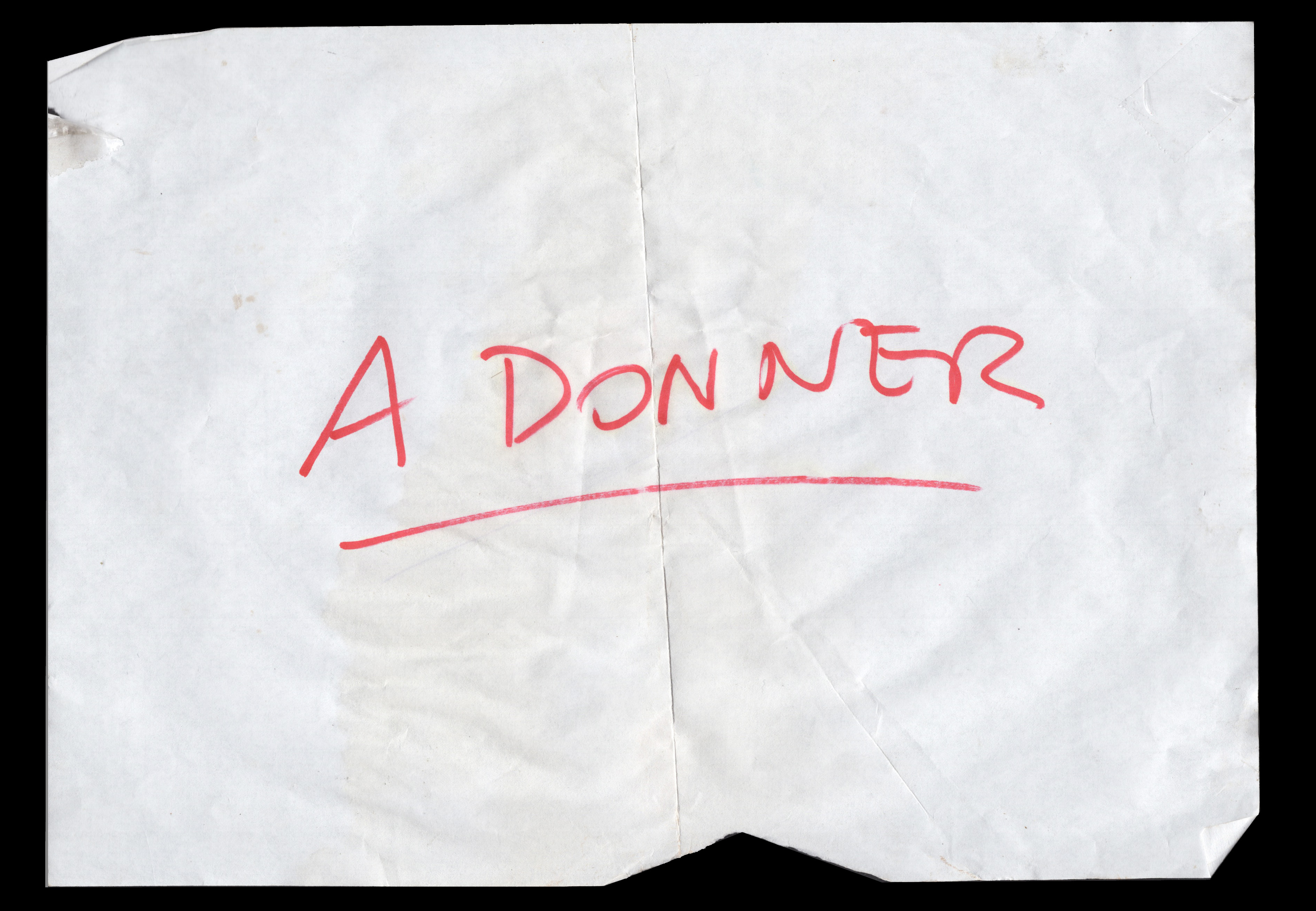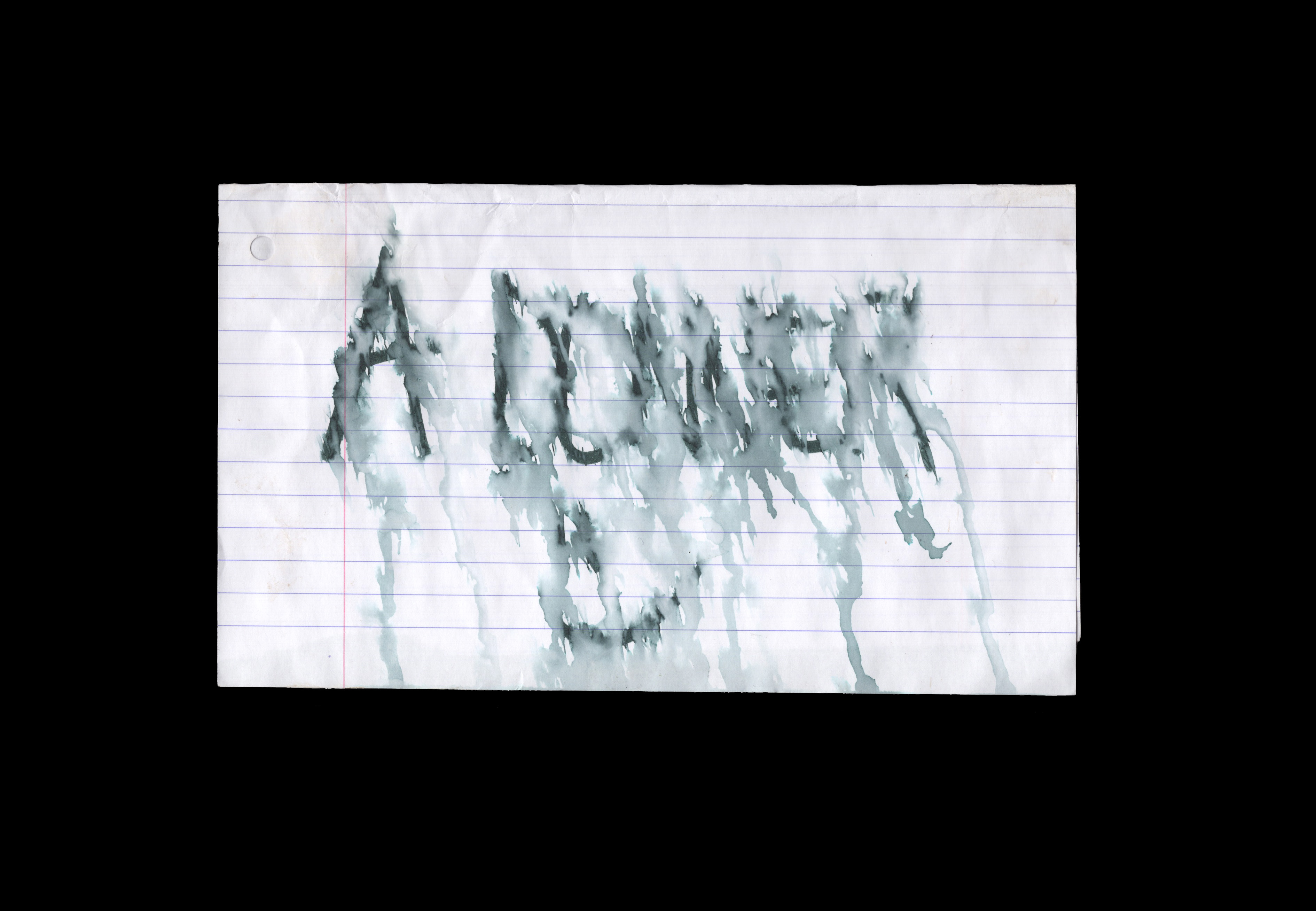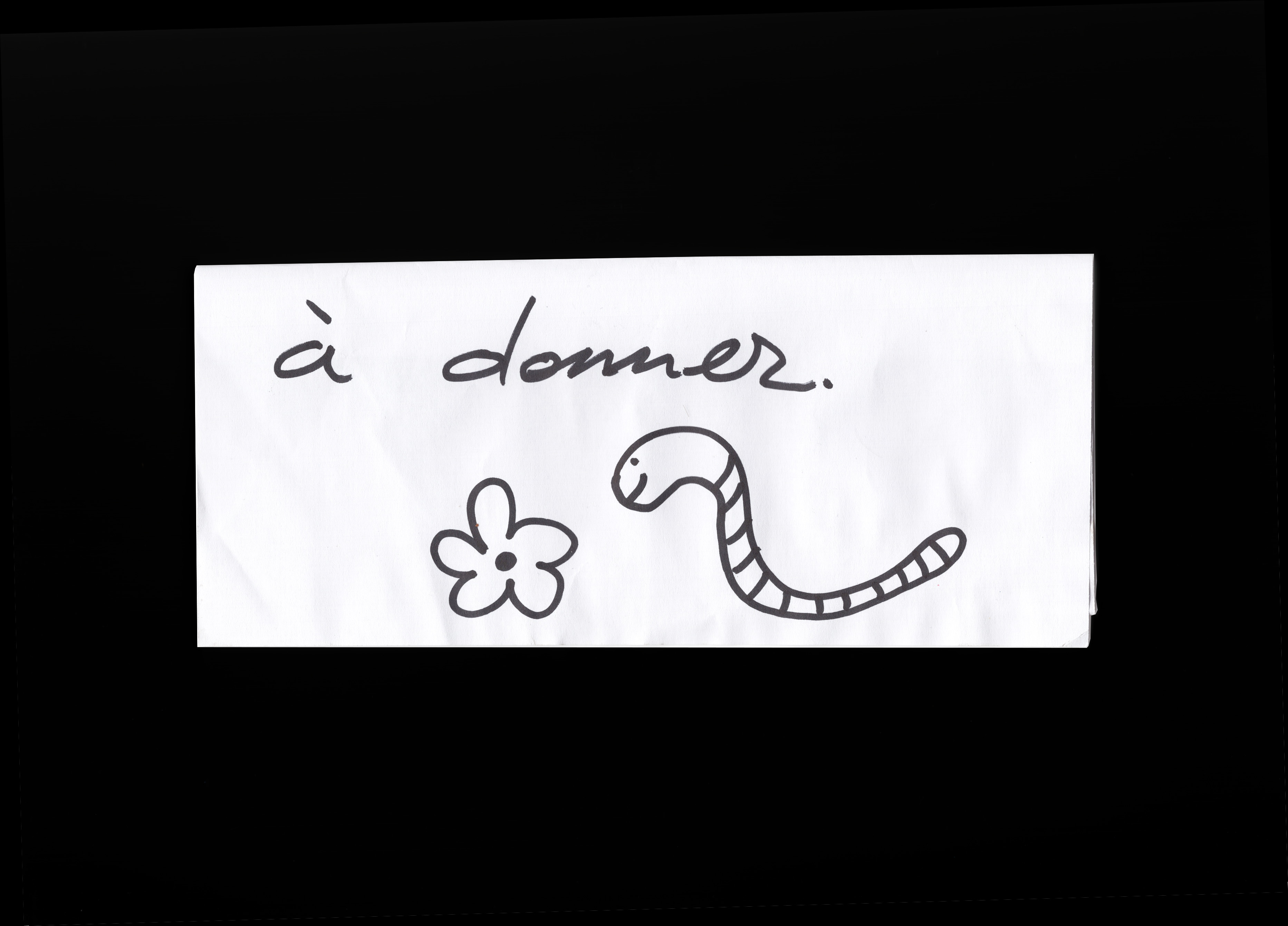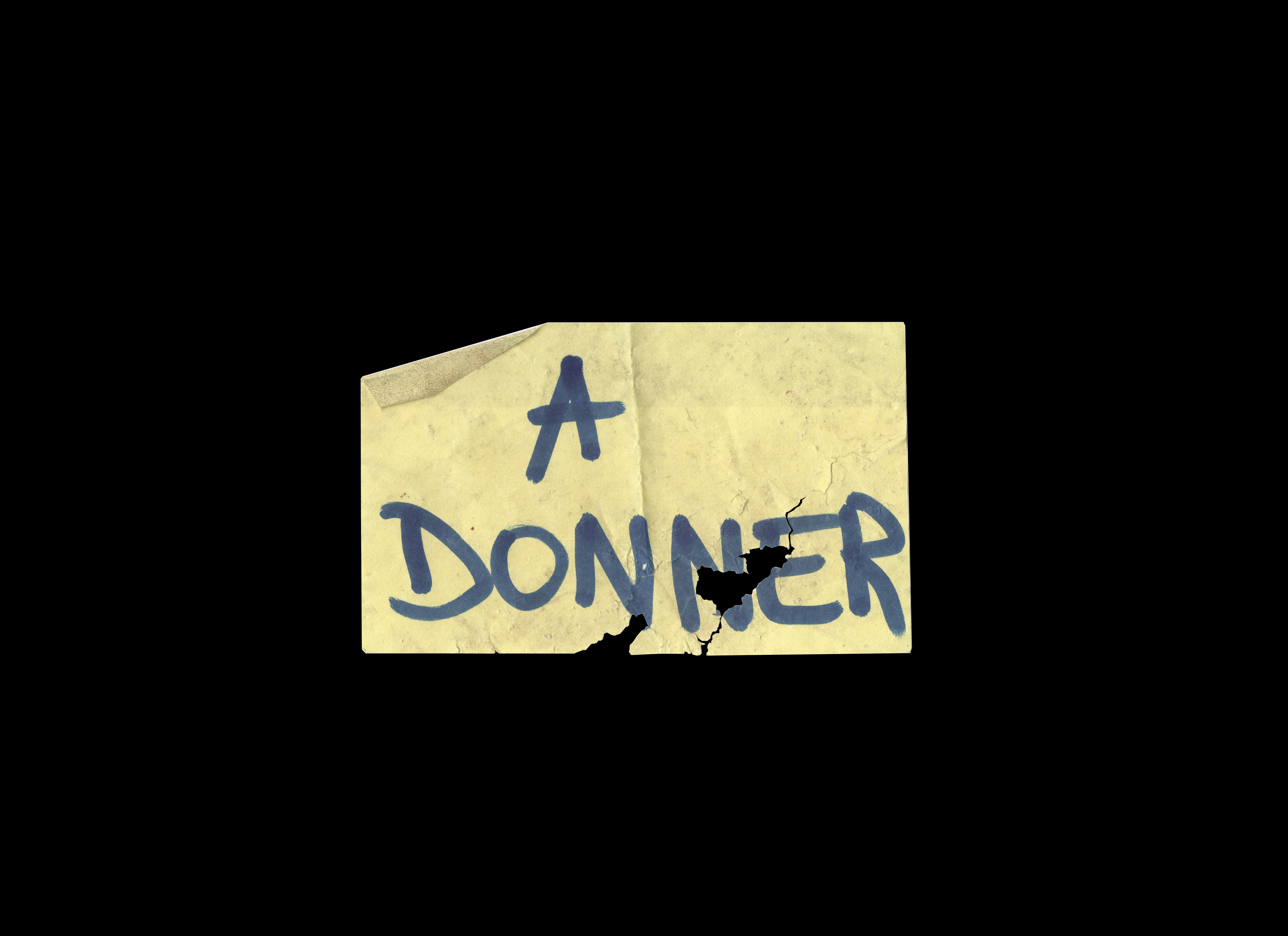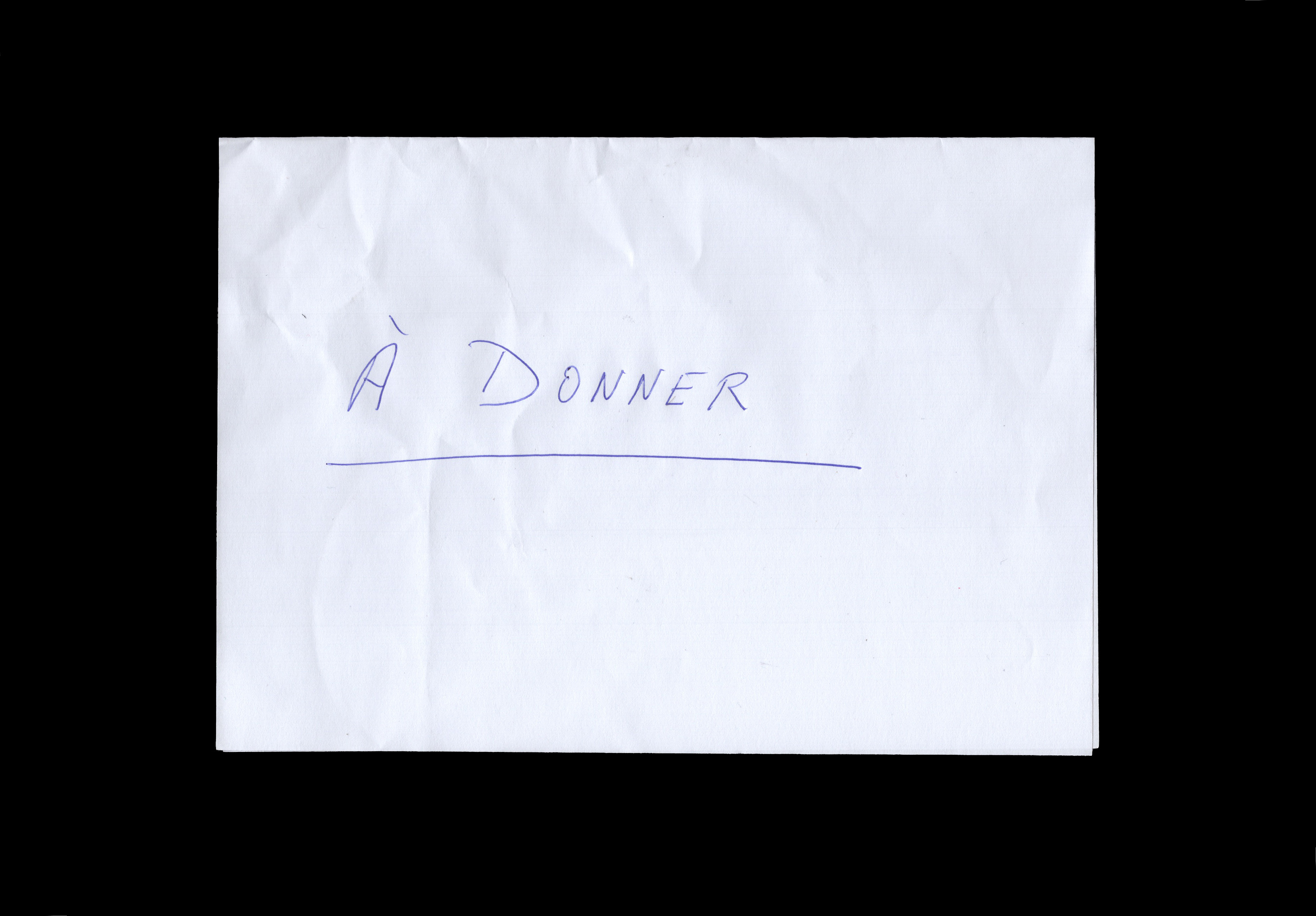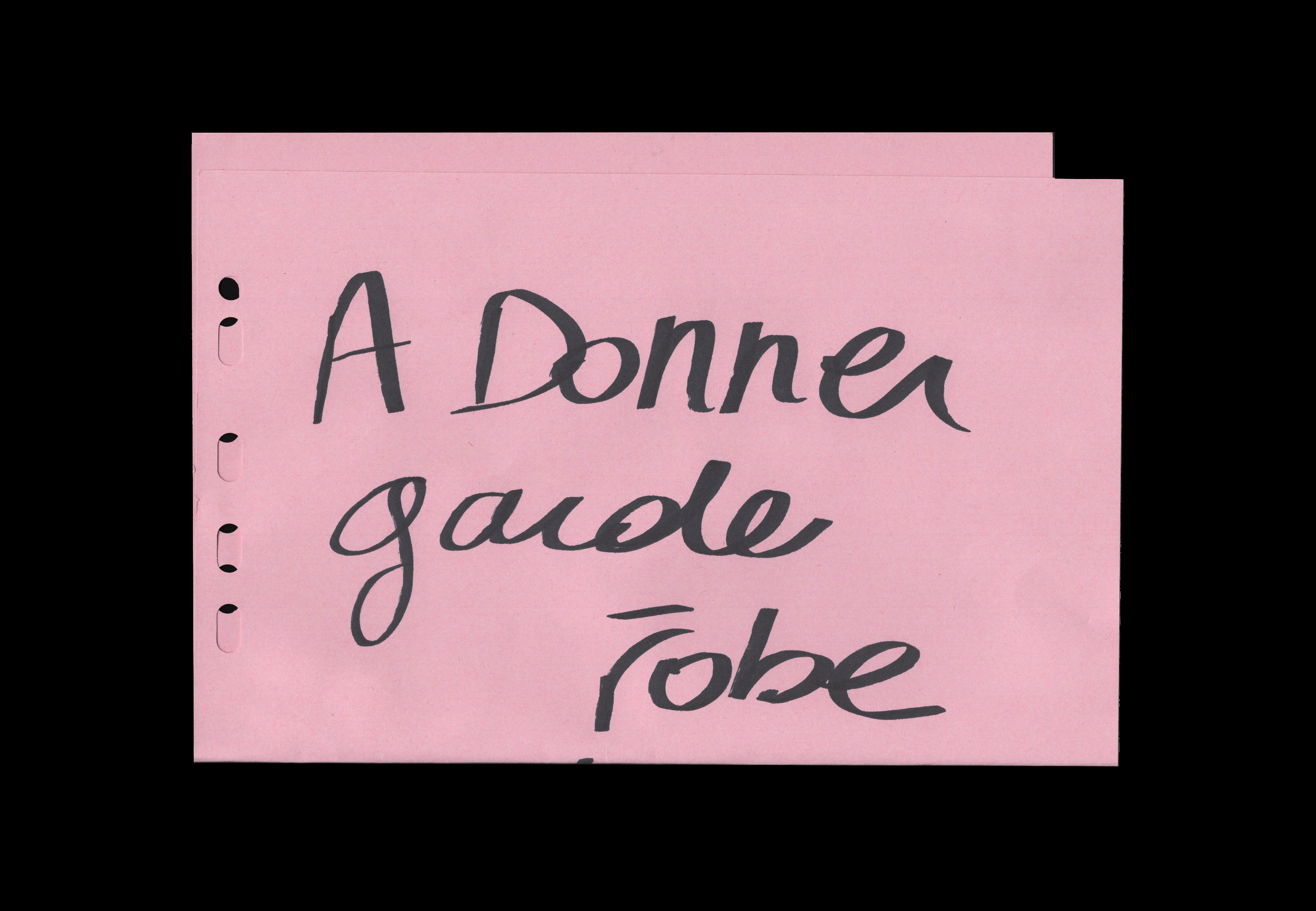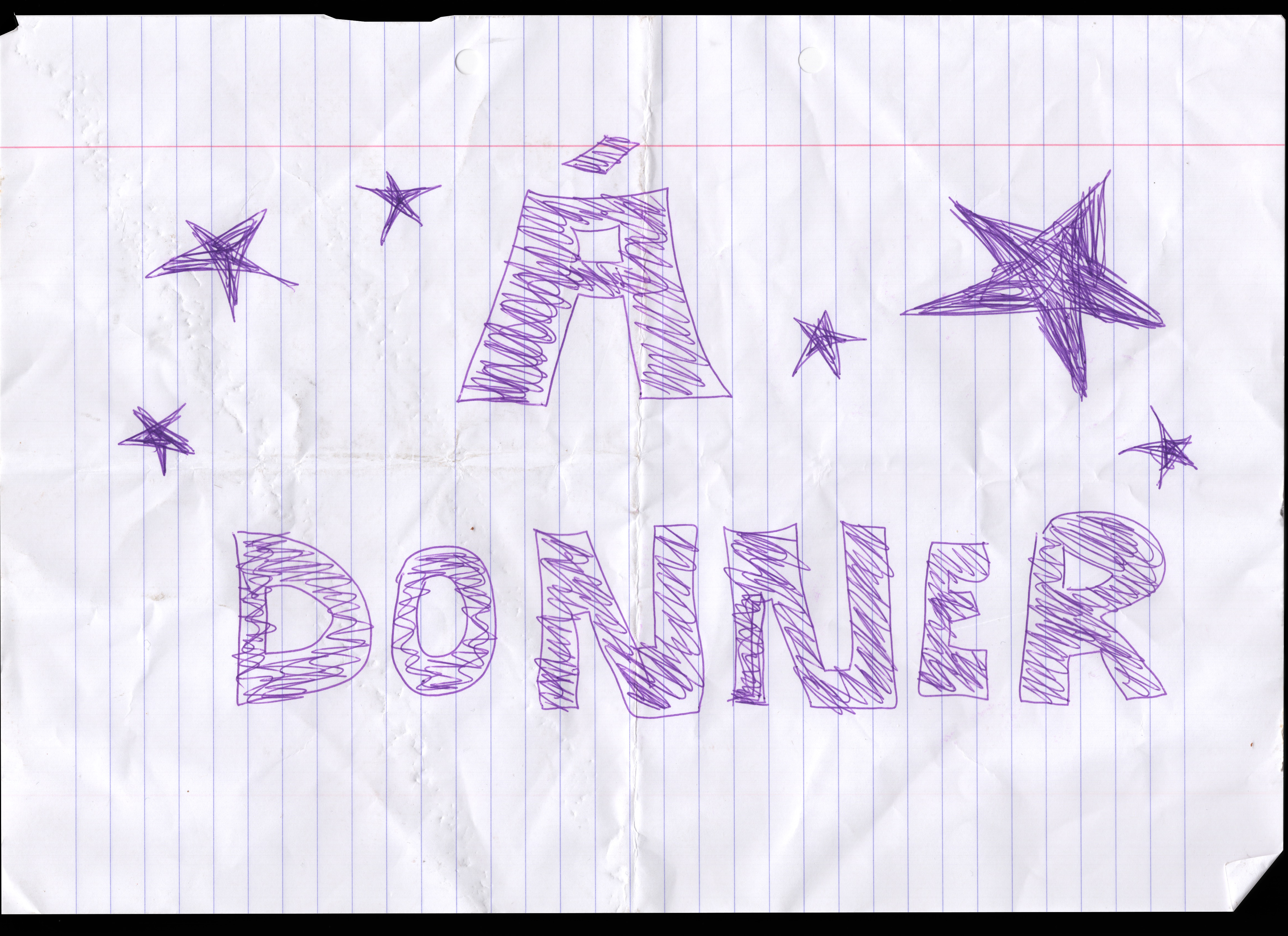
lesdits-mension (à la lettre) is a collection of notes that read à donner (to give away). These were retrieved by Achilles Mussche from objects placed on the street since 2021. He addresses the collection as an ongoing conversation with the people of Brussels. These handwritten notes serve as the basis for every letter to be copied by hand in watercolour.
“Dit-mension… deux mots… La dimension du dit. Où encore, le dit-mansionDerived from English… Mansion… La maison du dire. Tout ça pour dire qu’on est là… à ladite “Maison des Langues”… La maison vidée de ces langues et rembourrée, ici, maintenant, avec nos corps et ses nouvelles langues…”
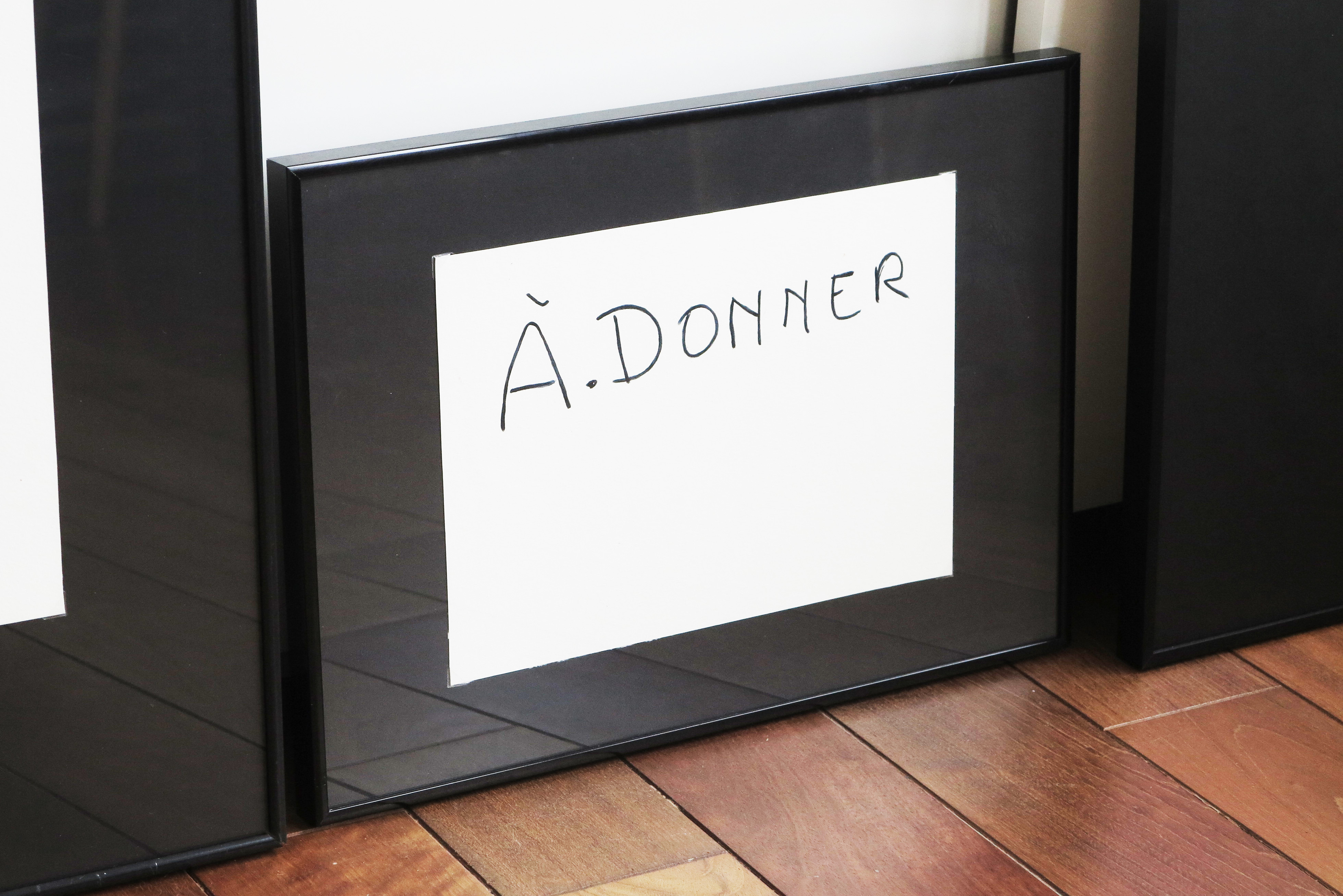
Achilles Mussche
Watercolor on paper (framed)
varied sizes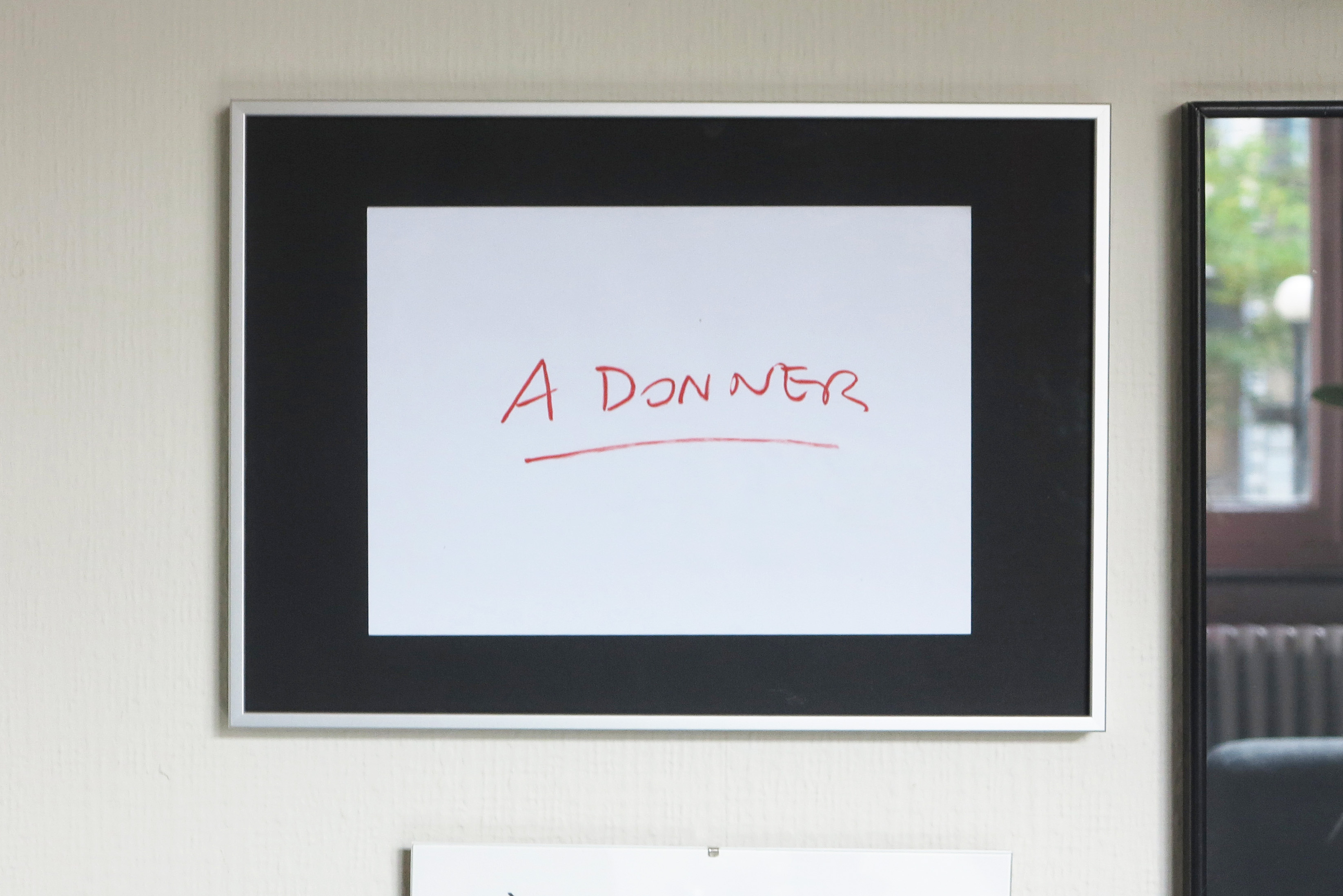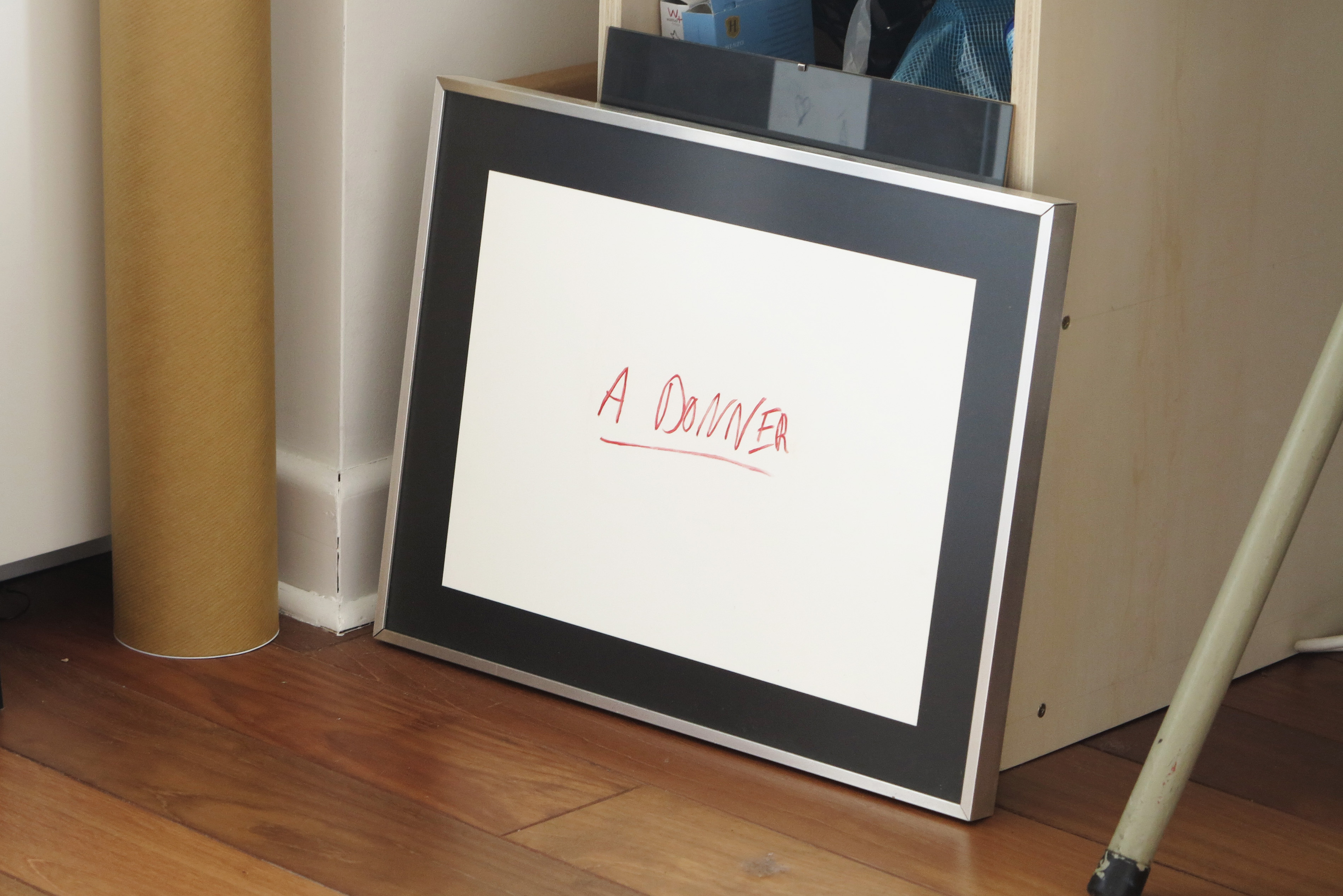